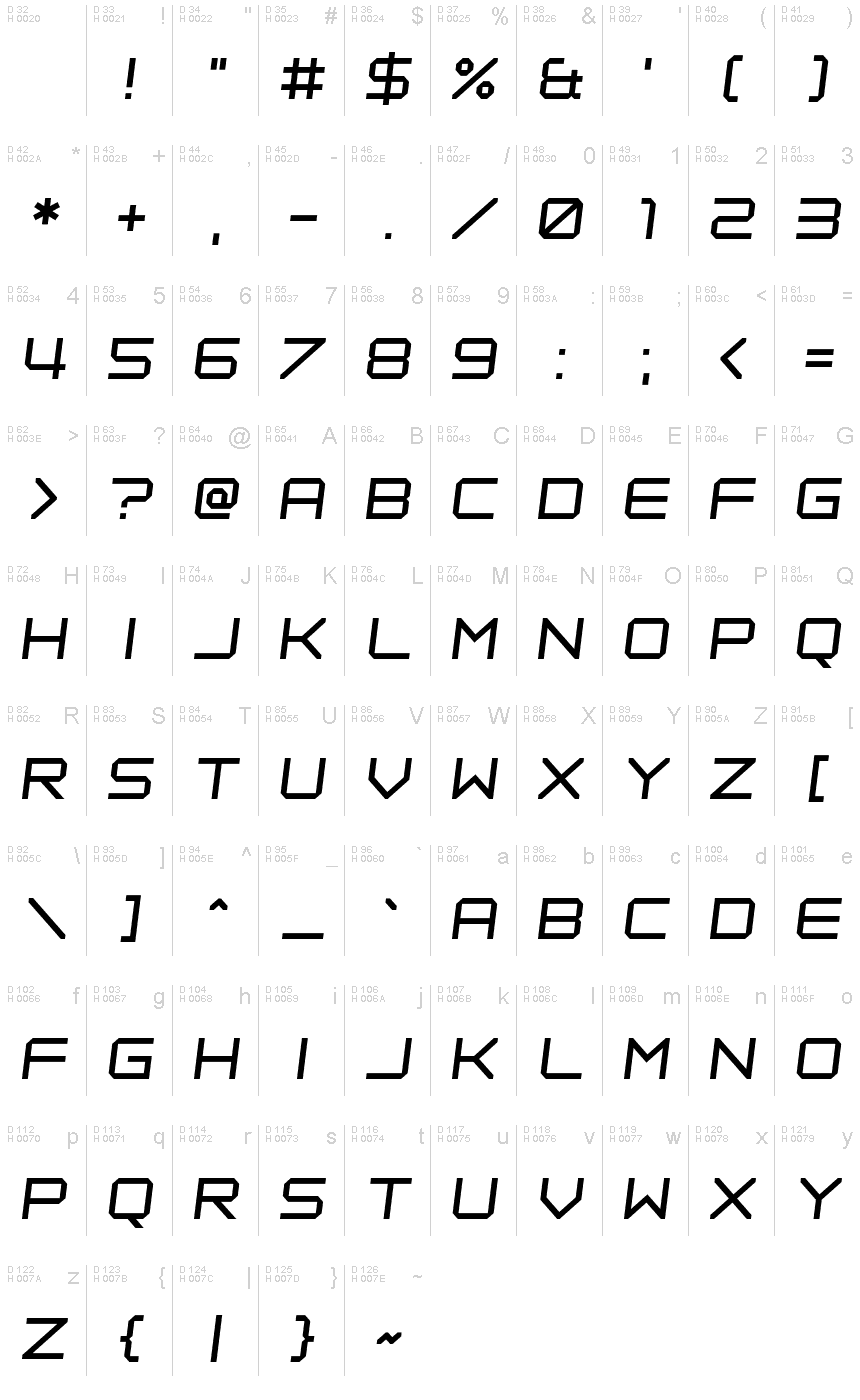
Despair Time
Despair Time, designed by Chequered Ink, is a captivating display font that exudes a futuristic and edgy vibe. With its semi-light weight and expanded width, it adds an extra touch of uniqueness to any project. Perfect for sci-fi book covers, gaming logos, or music album artwork, Despair Time commands attention with its techno style. Whether you're creating an immersive video game experience or designing a cutting-edge website interface, this font will effortlessly elevate your project to new levels of creativity and innovation. Embrace the boldness of Despair Time and leave a lasting impression.